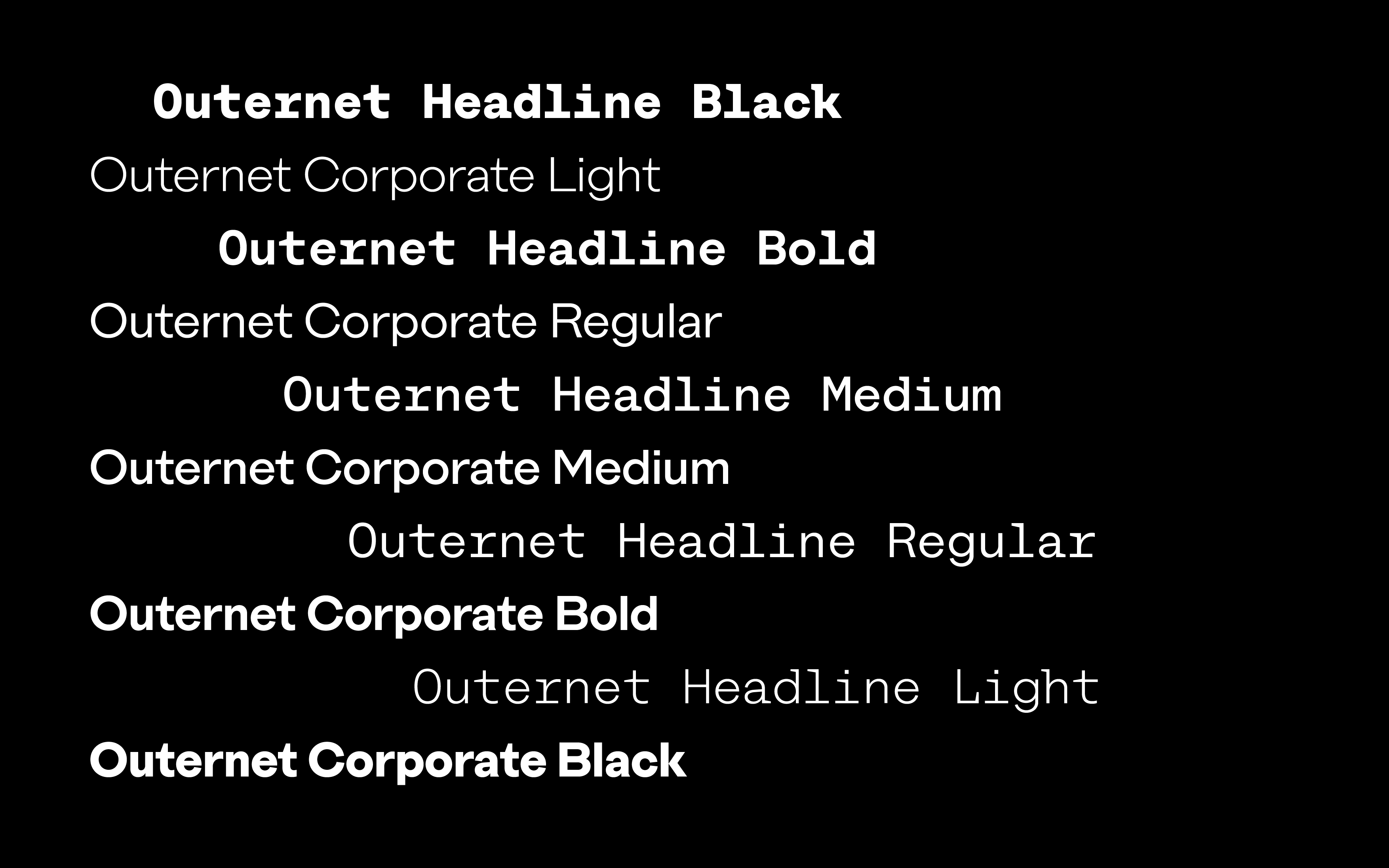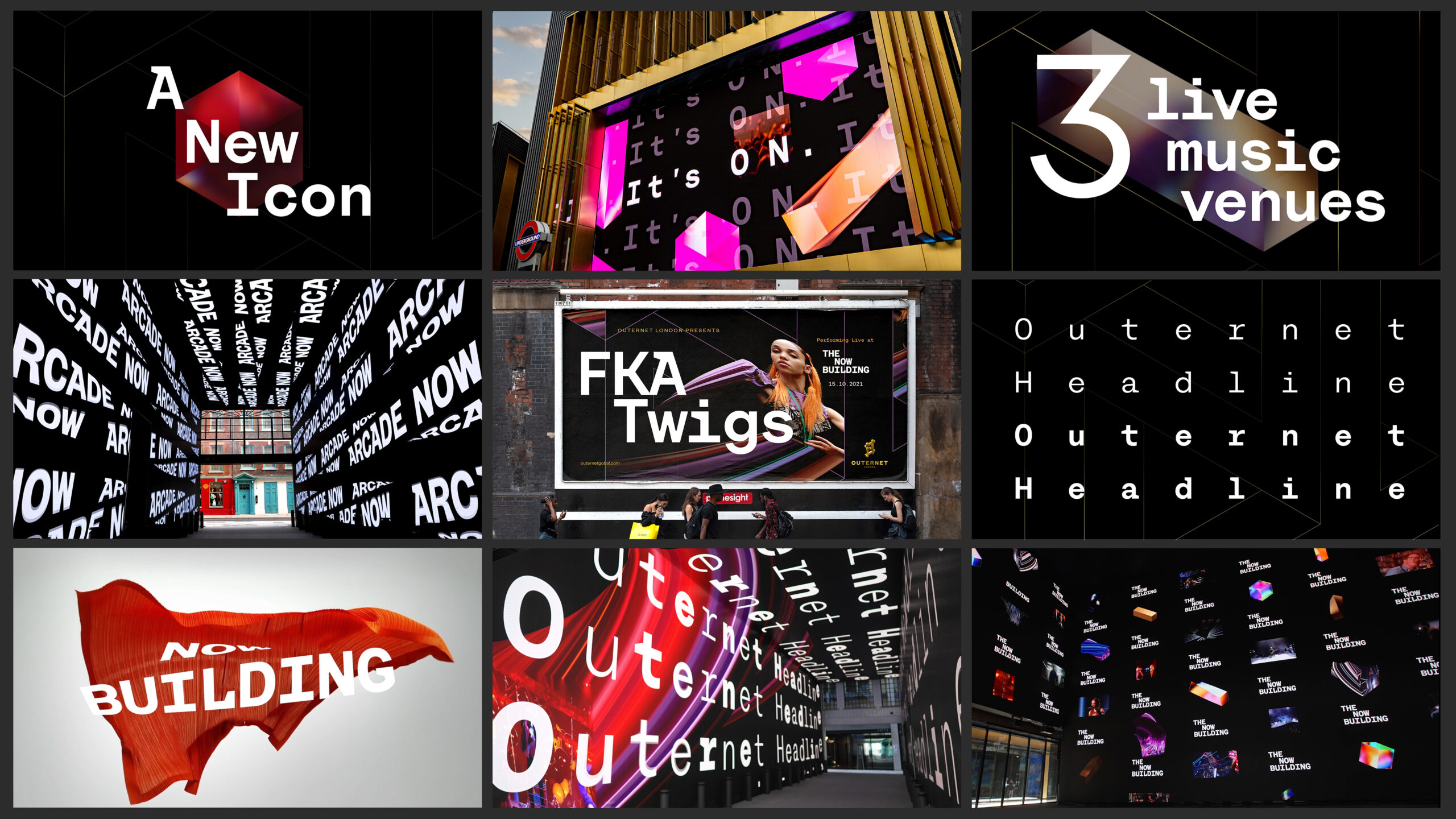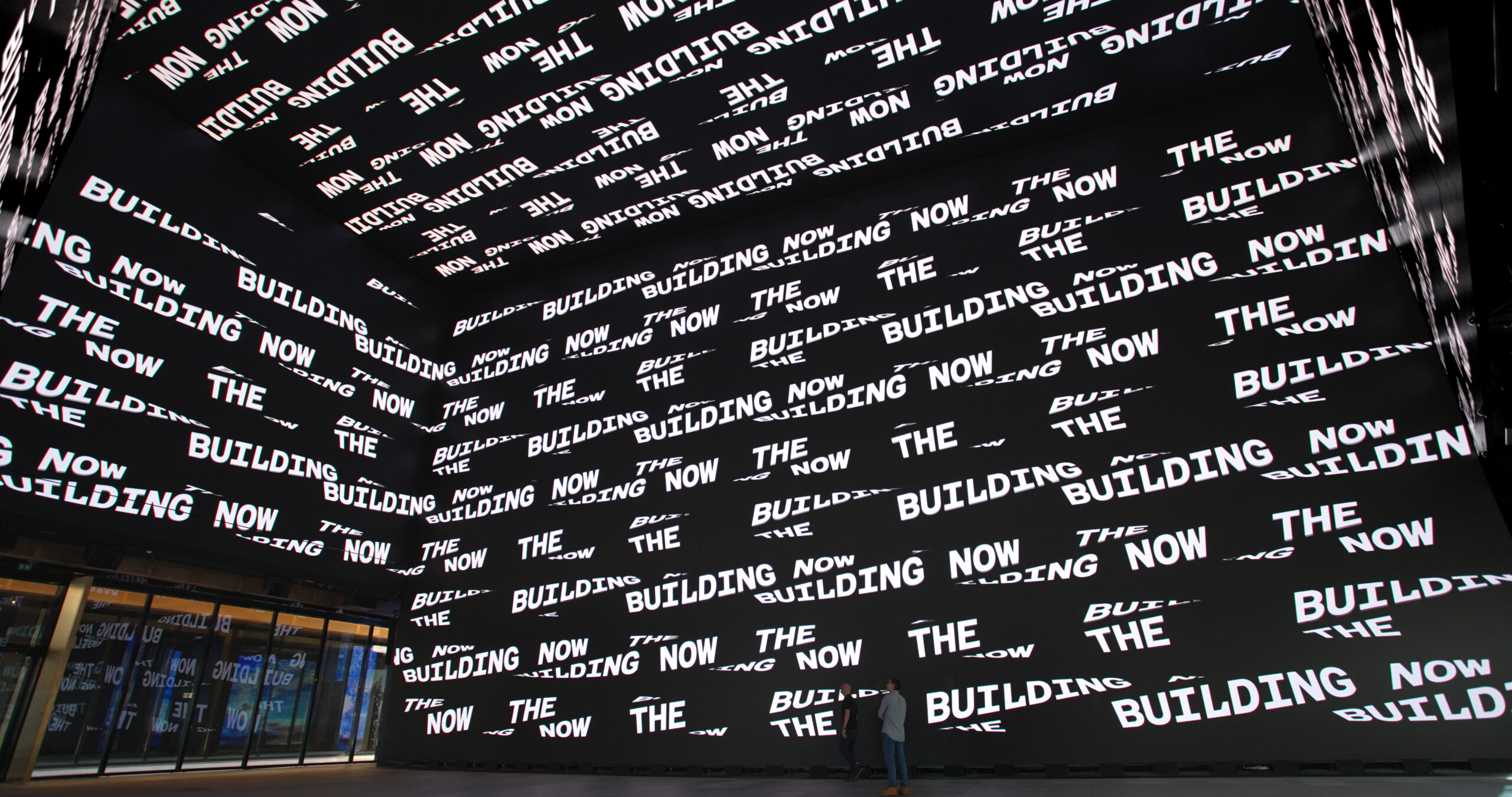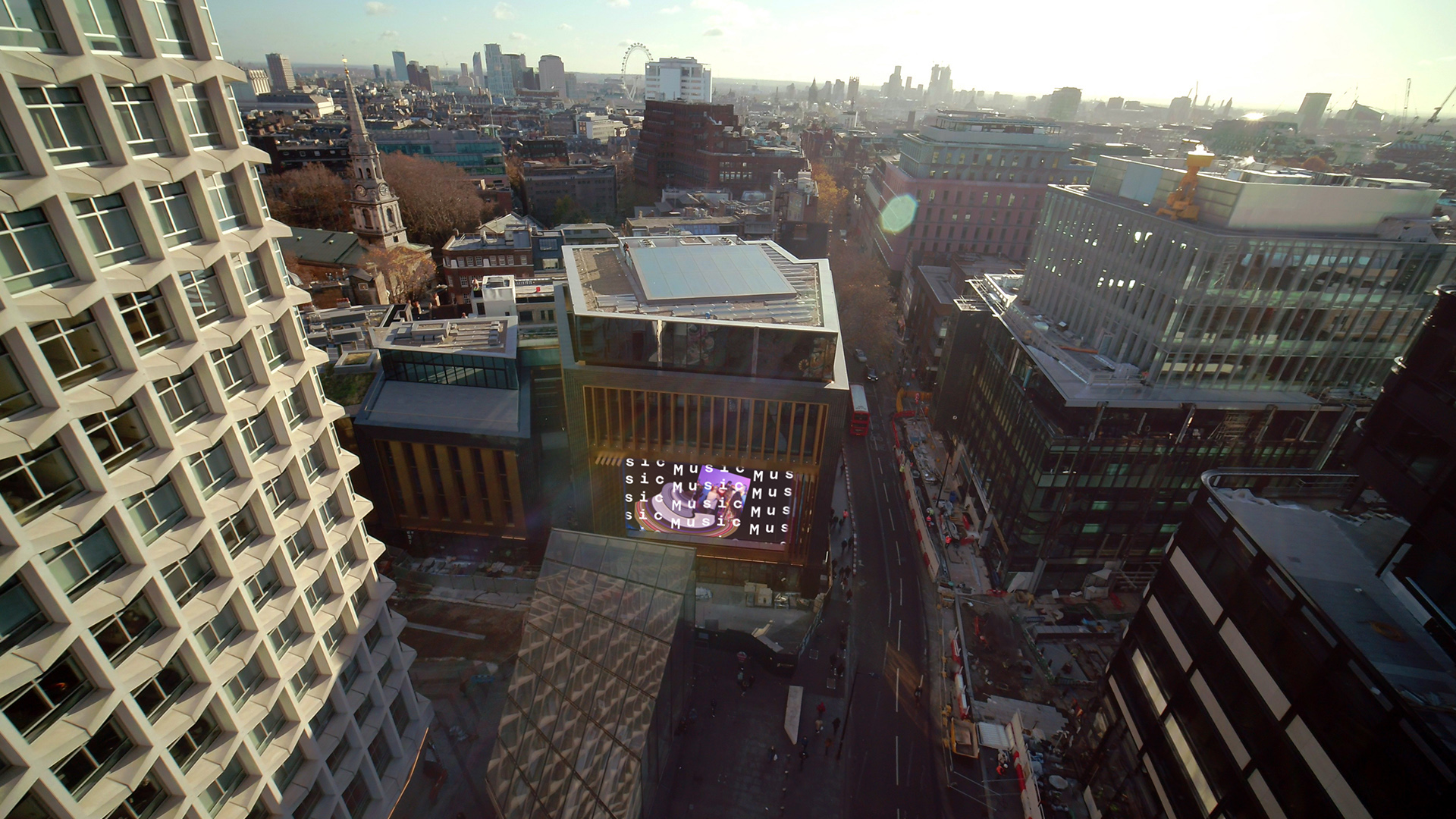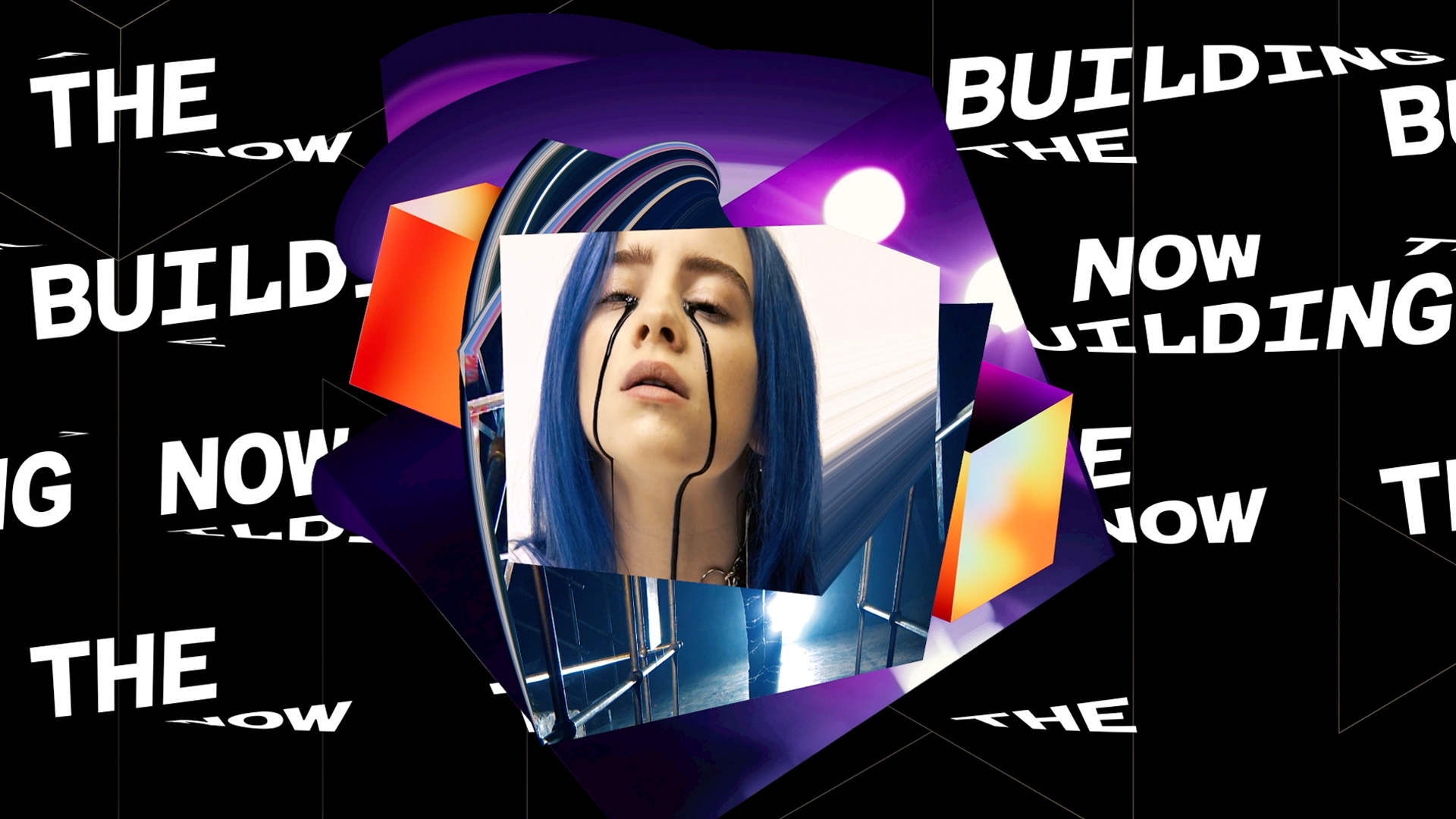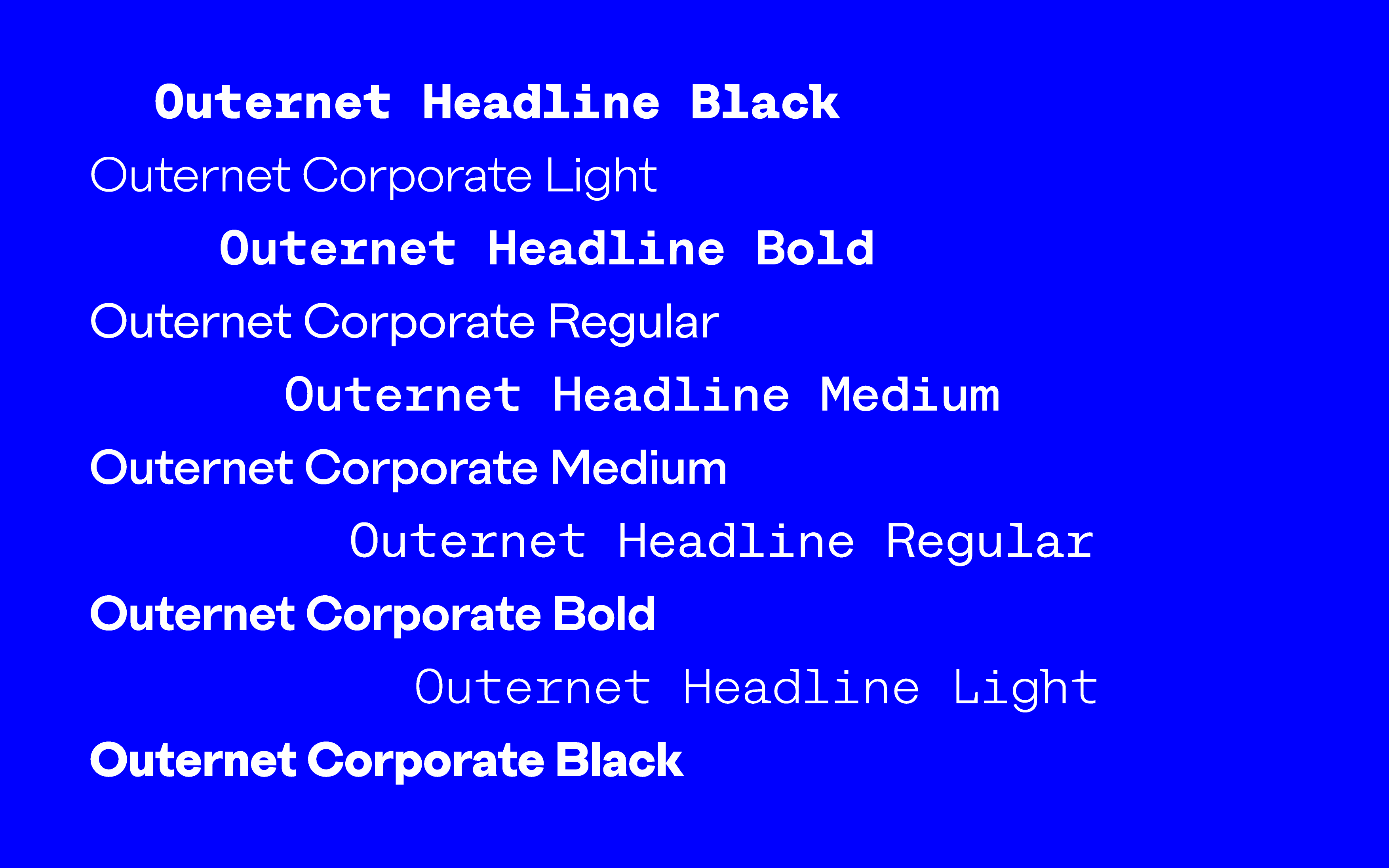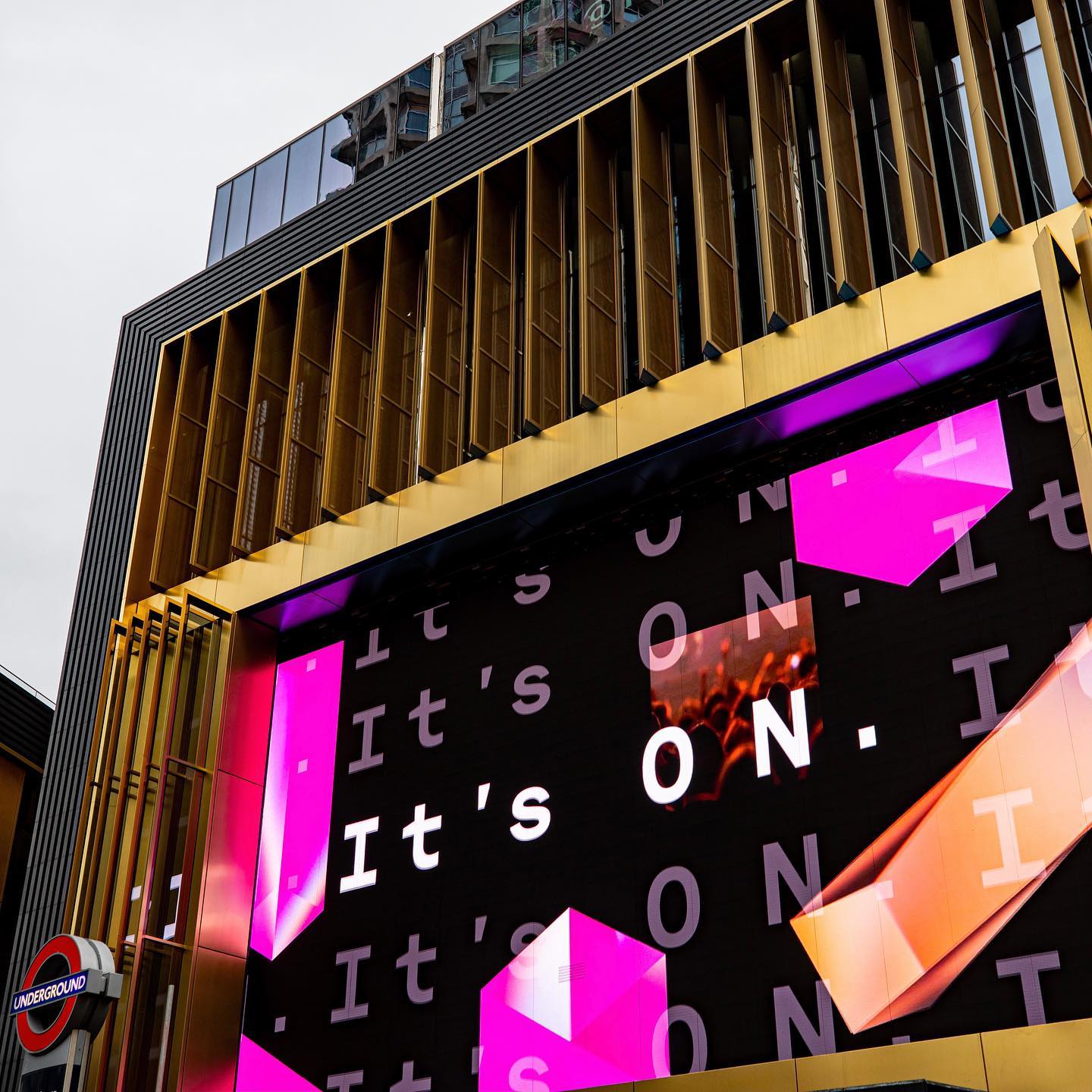
The Outernet
We partnered with DBLG to give the Outernet, a new live-music and shopping venue in the heart of London, a distinctive typographic voice.
With its unique 200m screen façade the Outernet needed a strong type presence as a glue to bring together a palette of diverse visual materials.
Aiming for a digital-first application we took advantage of variable font technology to create a display monospace family allowing animation in weight while keeping the same width. This titling family inherits from the coding font vernacular, doubling down on the tech-oriented physical internet identity of the venue. A second calmer proportional sub-family was created to undertake the job of setting longer form copy.
Custom Typeface